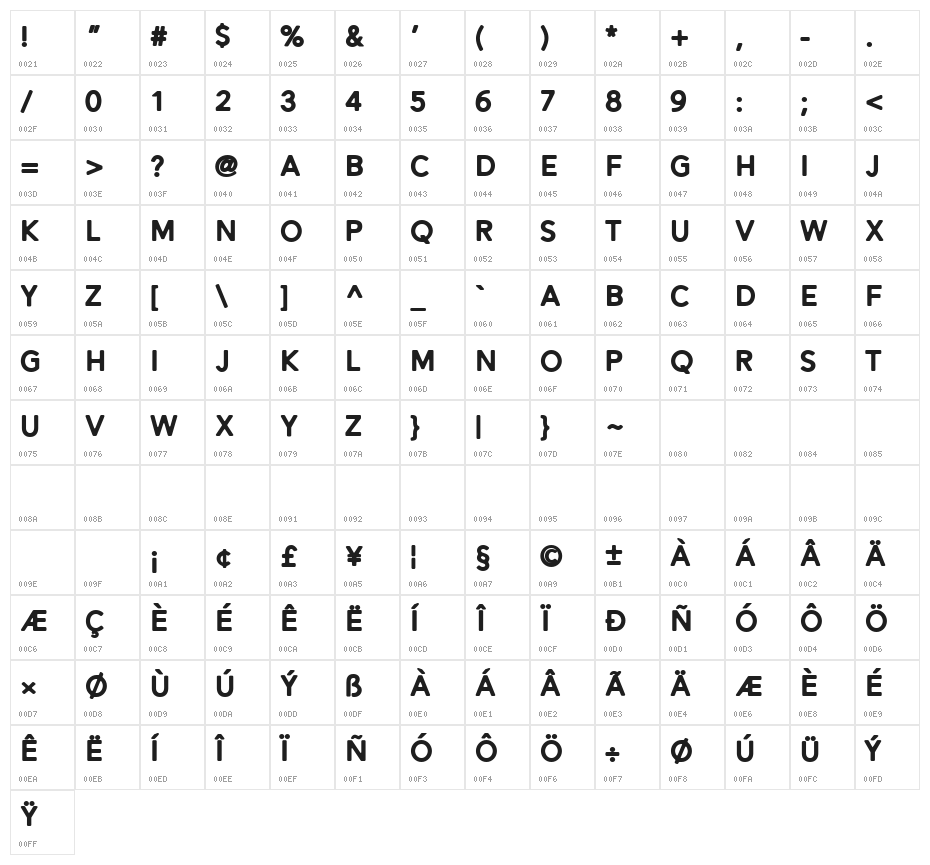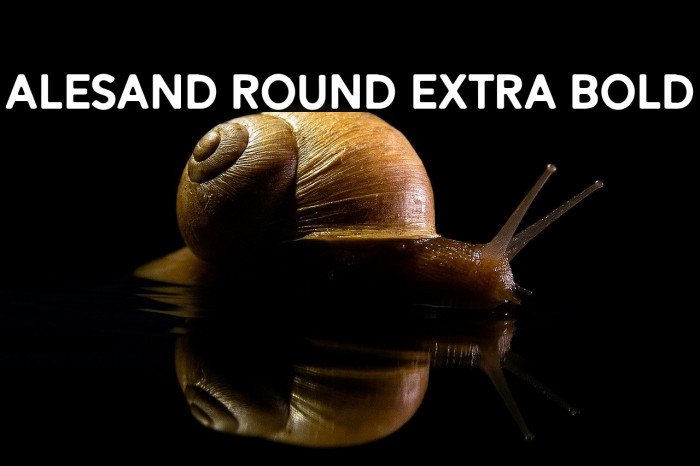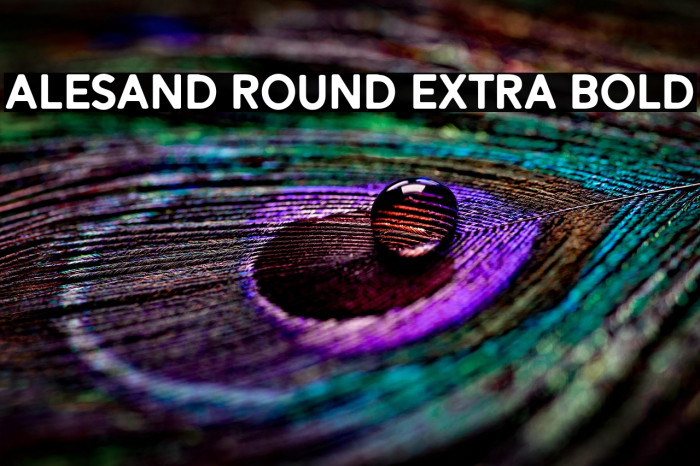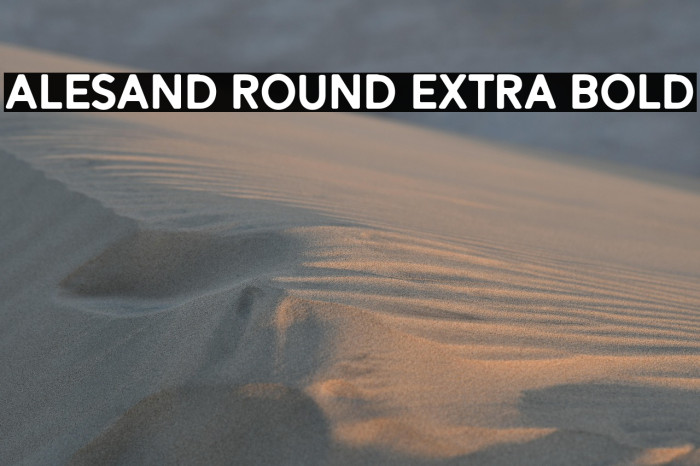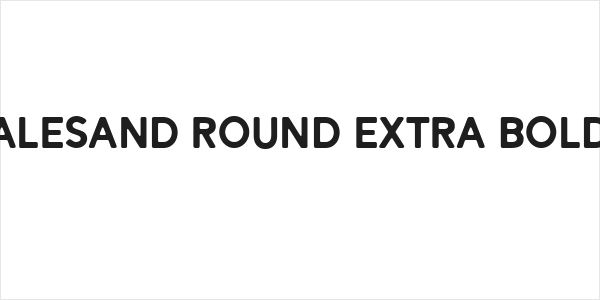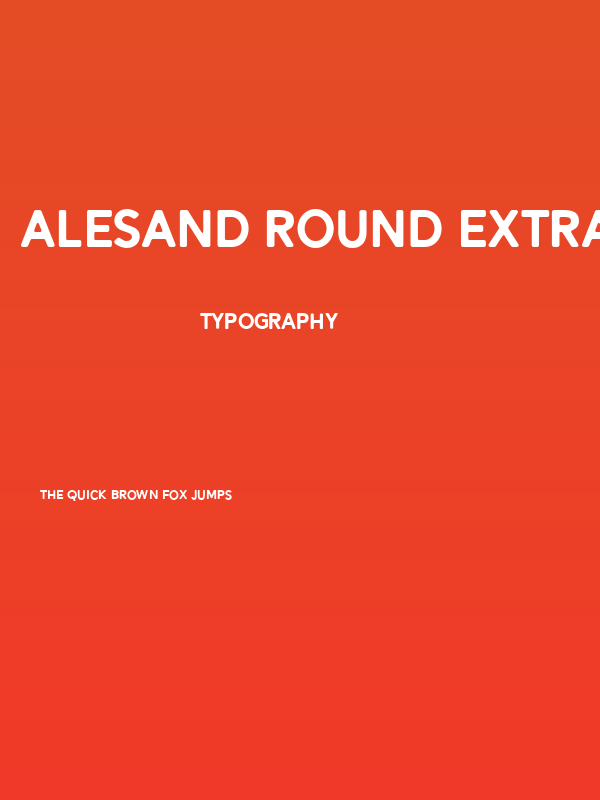
Alesand Round Extra Bold Font
Alesand Round Extra Bold Description
This typeface features a bold and rounded design, characterized by its smooth curves and consistent stroke weight. The letters are evenly spaced, providing a clean and modern appearance. The rounded edges give it a friendly and approachable feel, making it suitable for a variety of design applications. Its boldness ensures high visibility and readability, even from a distance. The numerals and special characters maintain the same rounded and bold style, ensuring consistency across all elements.
| Use Case | Headlines, Logos, Signage |
| Proposed Projects | Ideal for branding, signage, headlines, and any project requiring a modern and approachable look. |